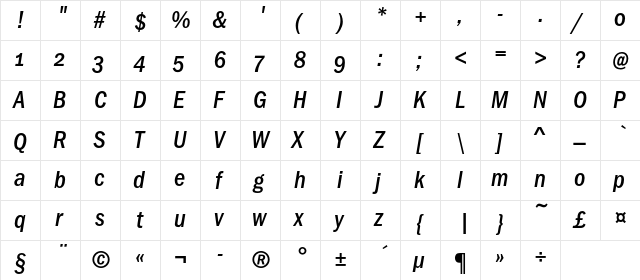
FranklinGothicMediCondOSC Italic Font Preview
Design Context for FranklinGothicMediCondOSC Typeface
FranklinGothicMediCondOSC takes a clean, functional approach — its unadorned letterforms prioritise legibility and work reliably across screen and print environments. The dynamic lean of this cut emphasises speed and emphasis in any layout. Its narrow stance lets it pack a punch even in space-constrained designs.
Font Pairing: Works well alongside a characterful serif or display font that can carry the expressive load while FranklinGothicMediCondOSC handles the functional copy.
Pro Tip: Try FranklinGothicMediCondOSC in all-caps with moderate tracking for navigation and label copy — it performs well in systematic UI contexts.